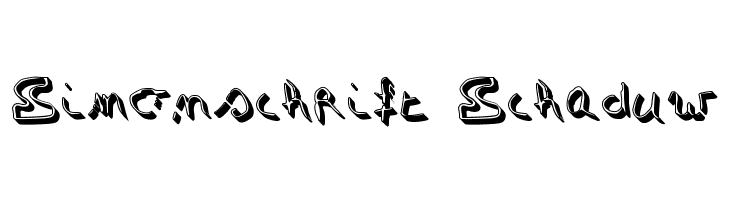
( Fonts by www.lars-manenschijn.nl )
A playful, shadowed font with rounded, bold characters and a modern, three-dimensional look.
( Fonts by pOPdOG fONTS - Dimitris Kolyris - popdog_fonts.tripod.com Sponsoren Schriftart )
A bold, decorative font with a retro, three-dimensional style.
( Fonts by Alphabet & Type: Typography & Graphic - Paolo Vannucci - www.alphabetype.it )
A bold, futuristic font with a 3D shadow effect.
A bold, rugged font with a textured, shadowed design.
( Fonts by Otto Maurer Design )
A decorative, bold font with a twisted, shadowed design ideal for dramatic displays.
A bold, condensed, shadowed, and italic font with a modern geometric style.